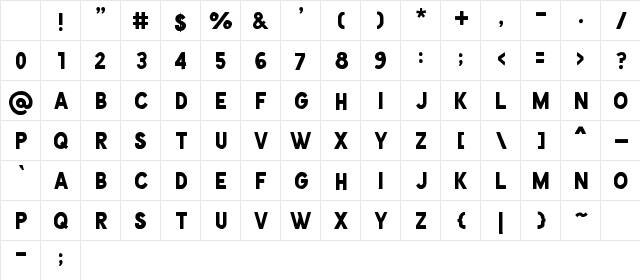
De Facto Zamosc is a composed and adaptable typeface that performs quietly and consistently across a wide range of design contexts.
Pro Tip: Use De Facto Zamosc in both headline and body roles to test its range before committing to a single application.